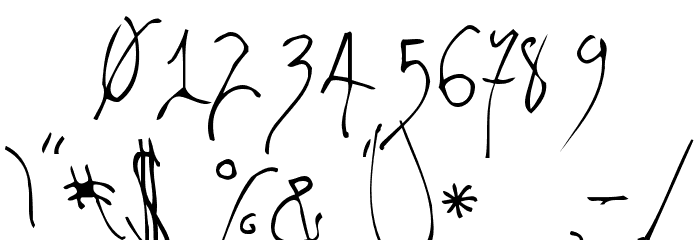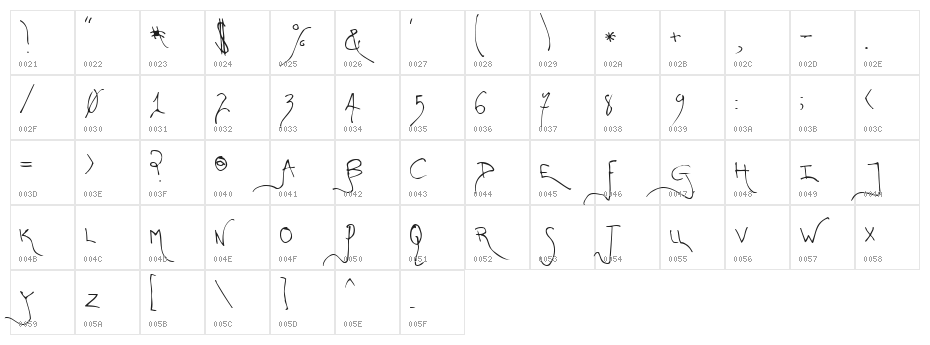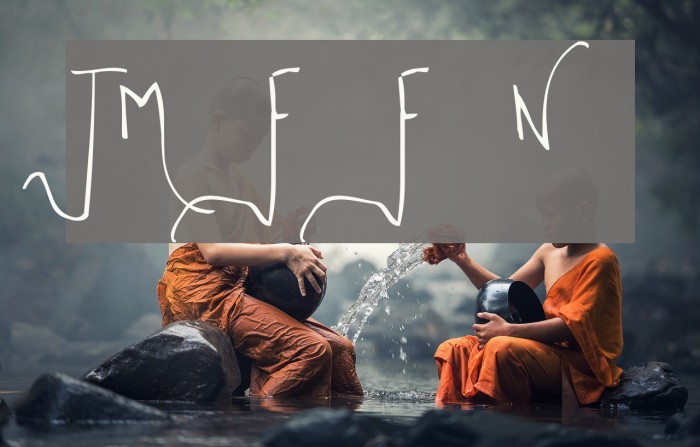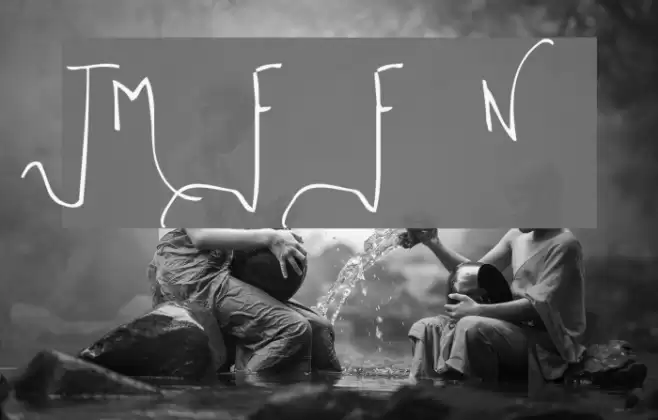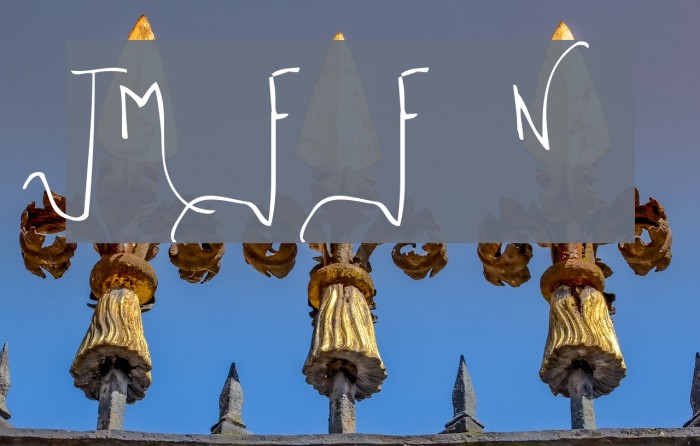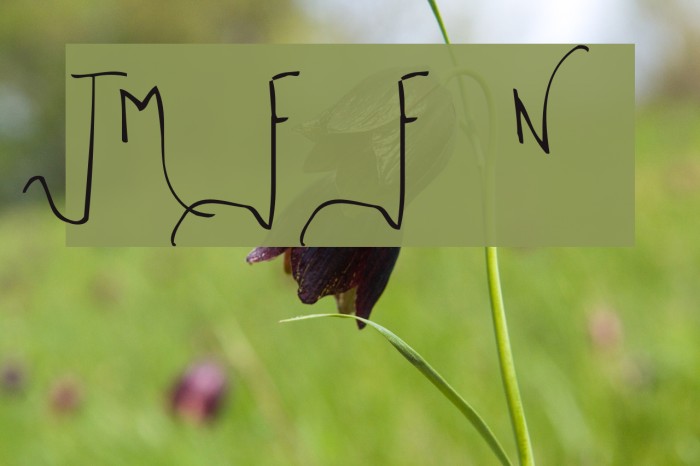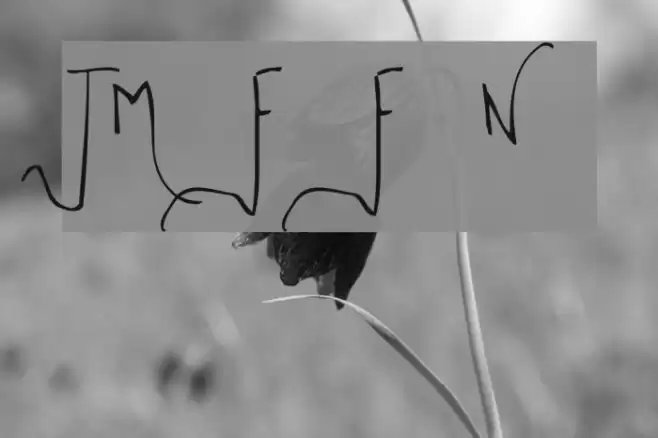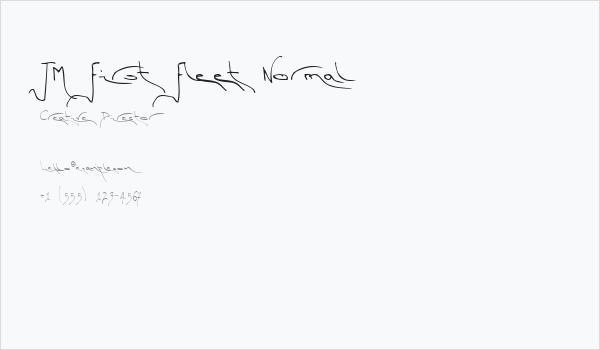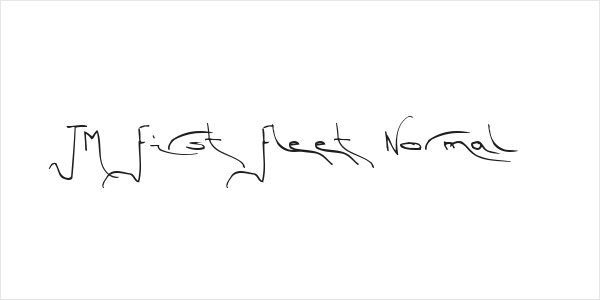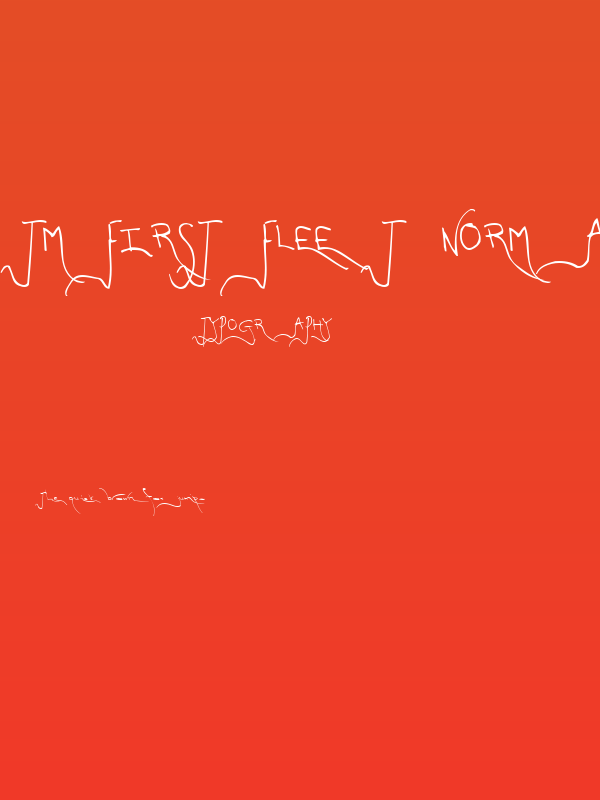
TM First Fleet Normal Font
TM First Fleet Normal Description
This font exhibits a dynamic and expressive style, characterized by its flowing, handwritten appearance. The letters are elongated and slightly irregular, giving it a unique, artistic flair. The uppercase and lowercase letters maintain a consistent style, with strokes that vary in thickness, adding to its organic feel. The numerals and special characters are crafted with the same attention to detail, ensuring a cohesive look across all elements. This font's distinctive style makes it stand out, ideal for projects that require a personal touch.
| Overall Style | Artistic, Expressive |
| Use Case | Logos, Artistic projects, Invitations |
| Proposed Projects | Ideal for creative projects such as invitations, greeting cards, artistic posters, and branding that seeks a personal, handcrafted touch. |